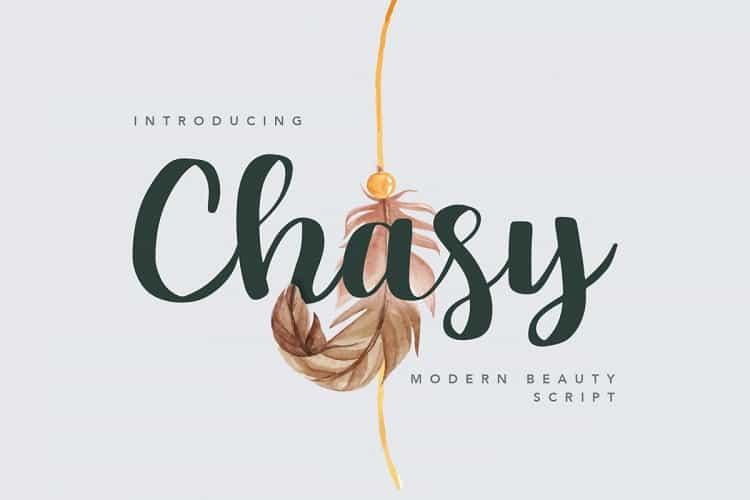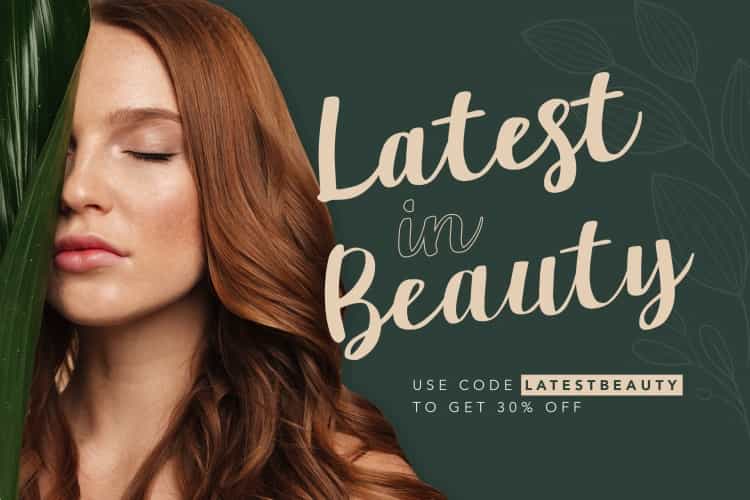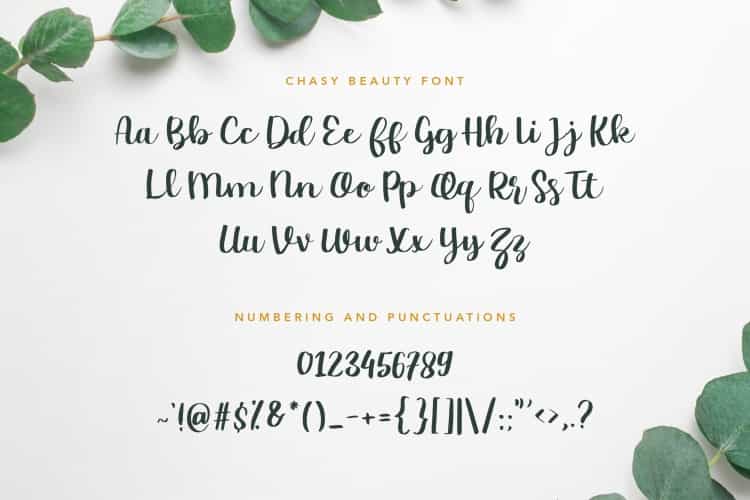
Modern, elegant and gorgeous calligraphy script typeface with a refined feeling. Chasy is ideal for display-related projects like quotes, product names logo, presentation as well as coffee-themed packaging. It’s also great for beauty and fashion-themed projects or for a trendy overlay of text on the background of any image.